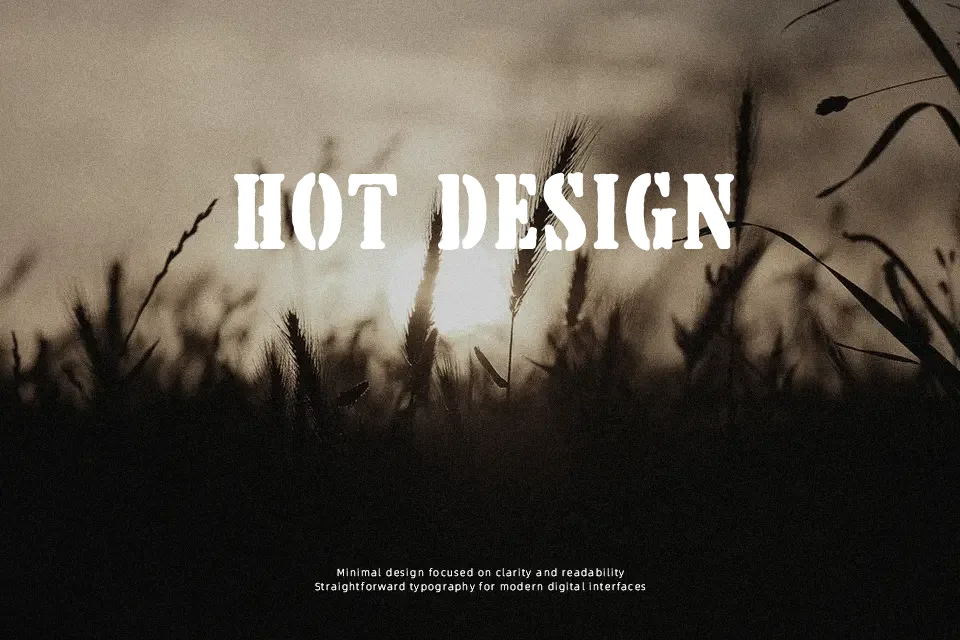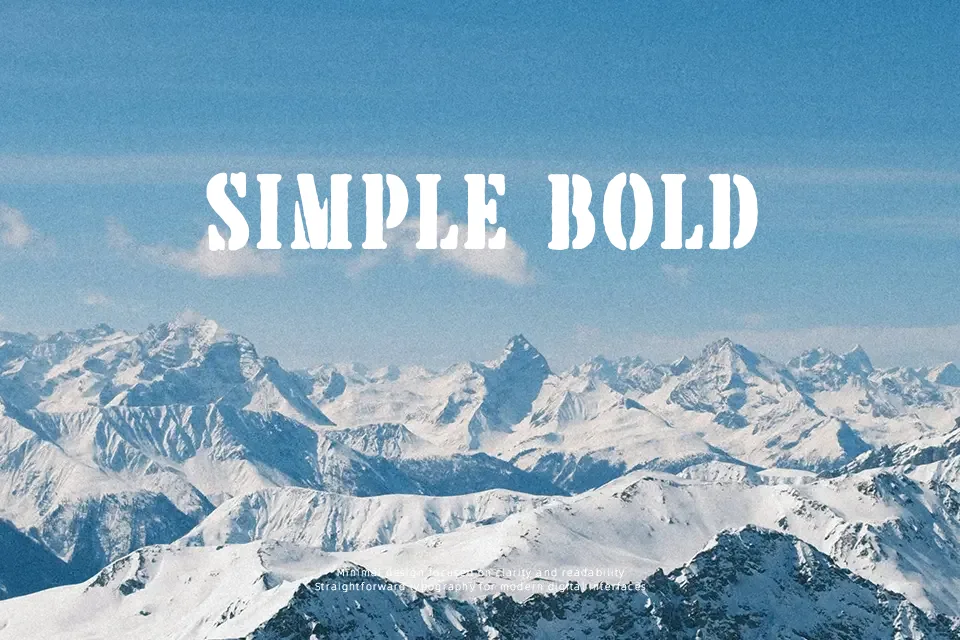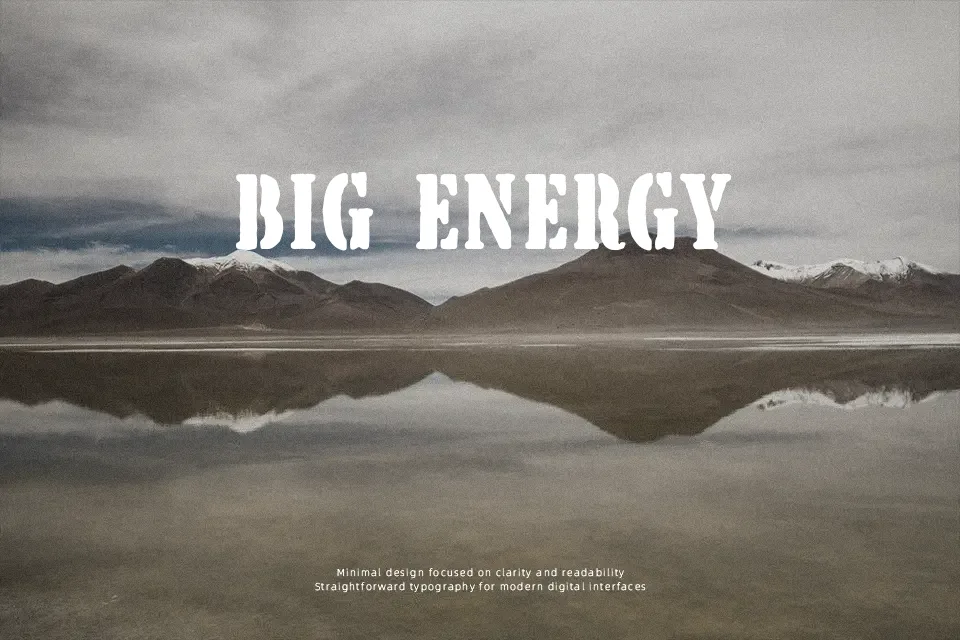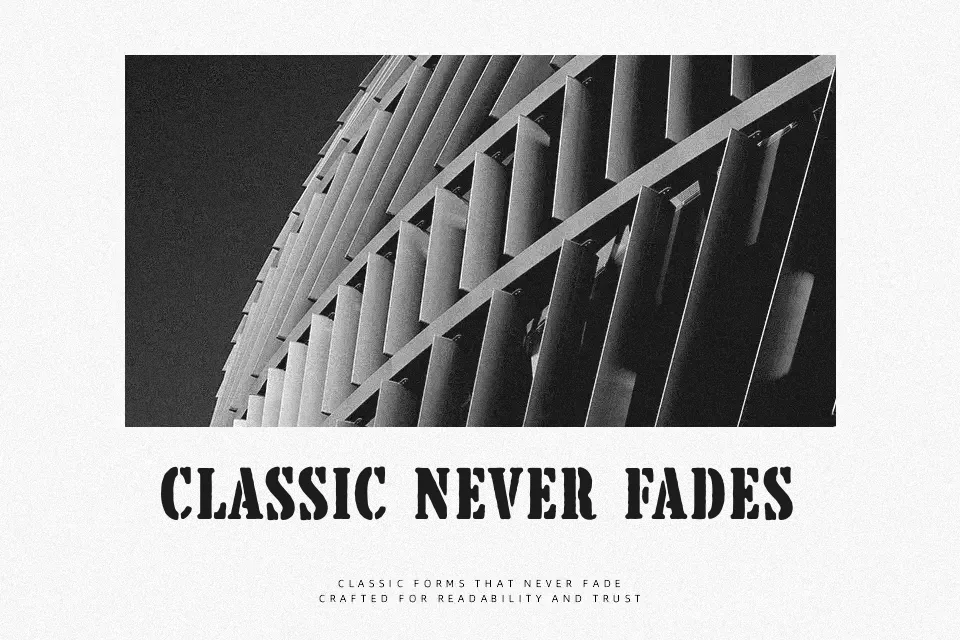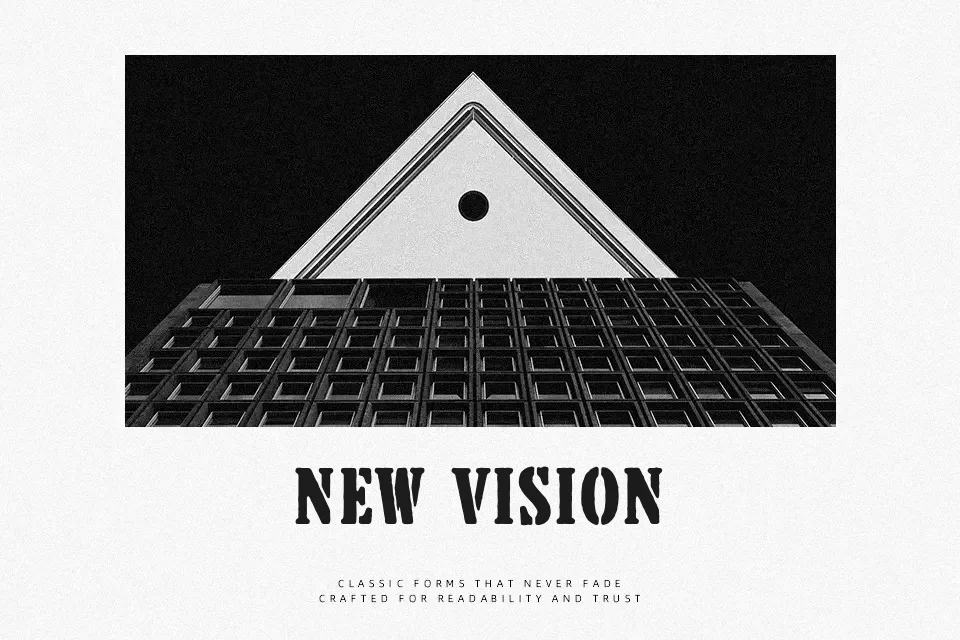
Brother Garage Serif Font
Designed by Edignwn Type
Brother Garage Serif combines a coarse, brush-like texture with a stencil serif structure, giving each letter a worn, mechanical edge without losing legibility. Sturdy strokes, all-caps construction, and relatively tight spacing push it toward loud, attention-seeking layouts rather than quiet reading. Visually it sits between vintage racing liveries and workshop signage, so it shines on motorcycle event posters, custom garage branding, beer labels, and apparel graphics where you want a rough, hands-on feel. It struggles in long paragraphs, small UI text, or projects that demand a clean corporate tone, so pairing it with a simple sans serif for supporting copy usually gives the best balance.
garage or motorsport branding and logos
vintage-style beer, coffee, or apparel packaging
bold event posters and signage with an industrial tone
body text or long editorial reading
minimalist corporate identities or formal documents
small interface labels or accessibility-focused layouts